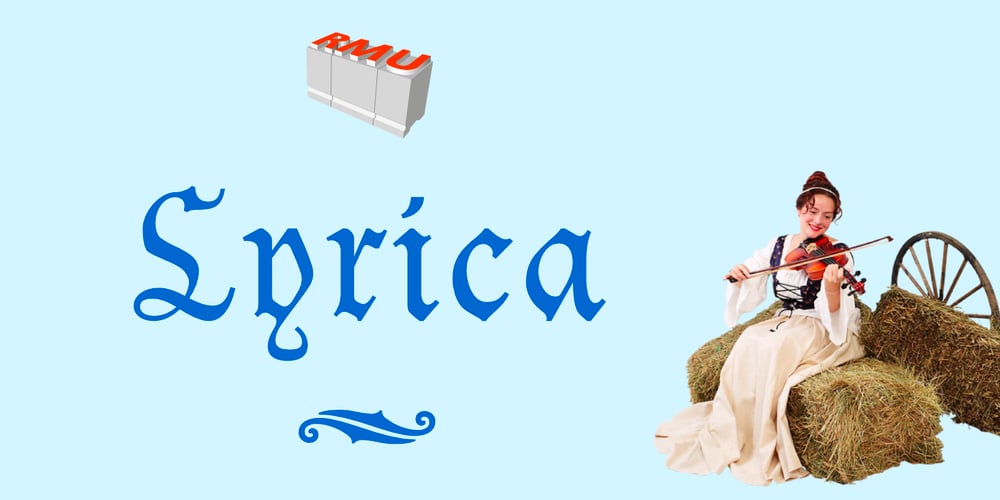
Lyrica
Lyrica font
Lyrica Font Family was designed by Ralph M. Unger, Georg Schiller and published by RMU. Lyrica contains 1 styles and family package options. Lyrica – a redesign of the 1907 Ludwig & Mayer font ‘Lyrisch’ (by Georg Schiller (1858–1937)). An informal blackletter font with a cozy and familiar touch.